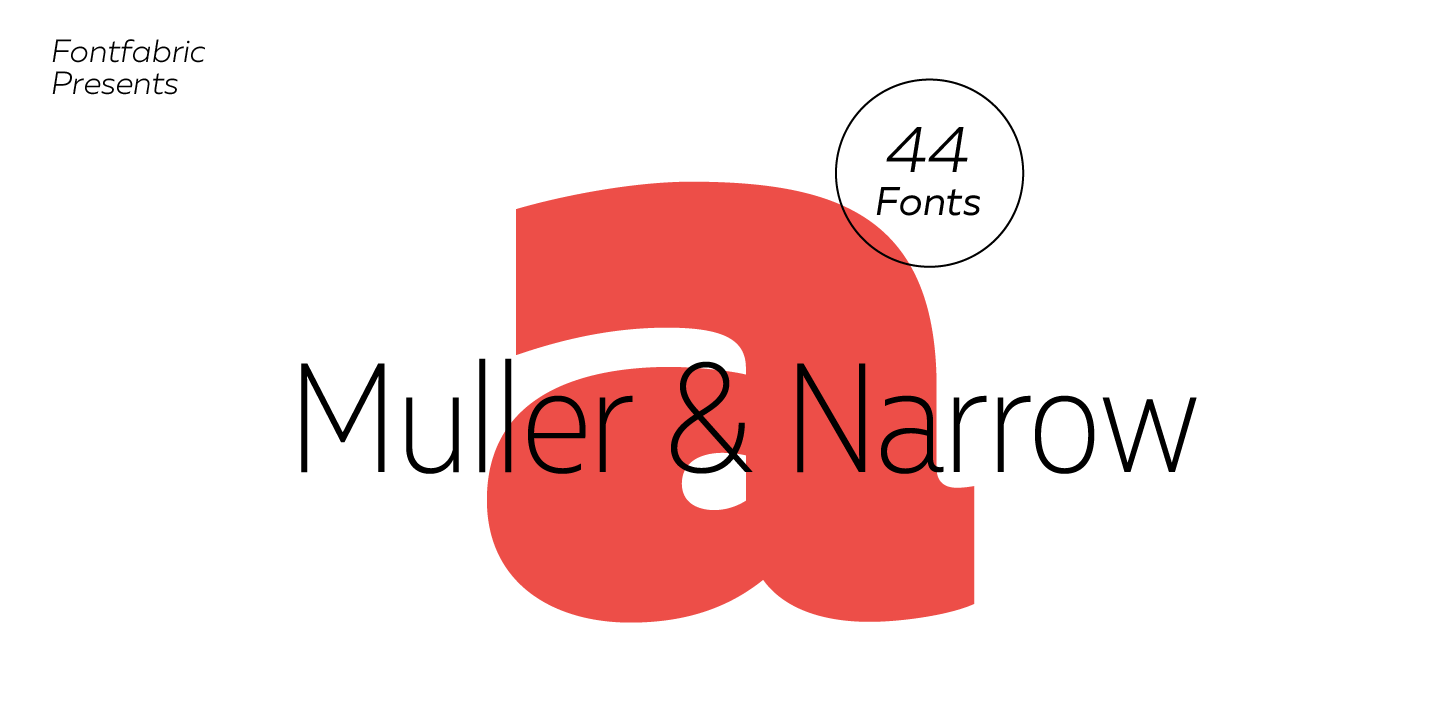
Muller Font is perfect for contemporary projects including modern tech company branding, minimalist app interfaces, clean website designs, corporate presentation materials, professional service logos, startup marketing campaigns, sleek packaging designs, and sophisticated editorial layouts. This versatile typeface brings geometric precision and modern sophistication to any design project.
What makes Muller Font exciting is its perfect balance of geometric structure and humanist warmth that creates approachable professionalism. The carefully crafted letterforms feature clean lines and subtle character that avoid the coldness of pure geometric fonts while maintaining crisp clarity for digital applications. This font delivers the ideal combination of technical precision and human accessibility that modern brands need to connect with diverse audiences.
The Muller Font family typically includes multiple weights from thin to black with corresponding italic styles, complete uppercase and lowercase alphabets, numerals, punctuation, and contemporary symbols. The design incorporates refined geometric principles and optimized spacing that enhance readability across all platforms. Premium versions often include extended character sets, OpenType features, and comprehensive language support for international applications.
Whether you're designing for technology companies, professional services, or contemporary brands, Muller Font Free Download delivers the modern reliability that builds trust and credibility. Its versatile nature makes it equally effective for large display applications and extended text reading. The font's geometric heritage ensures it communicates precision and innovation, making it perfect for any project requiring the clean aesthetic of contemporary design excellence and professional sophistication.